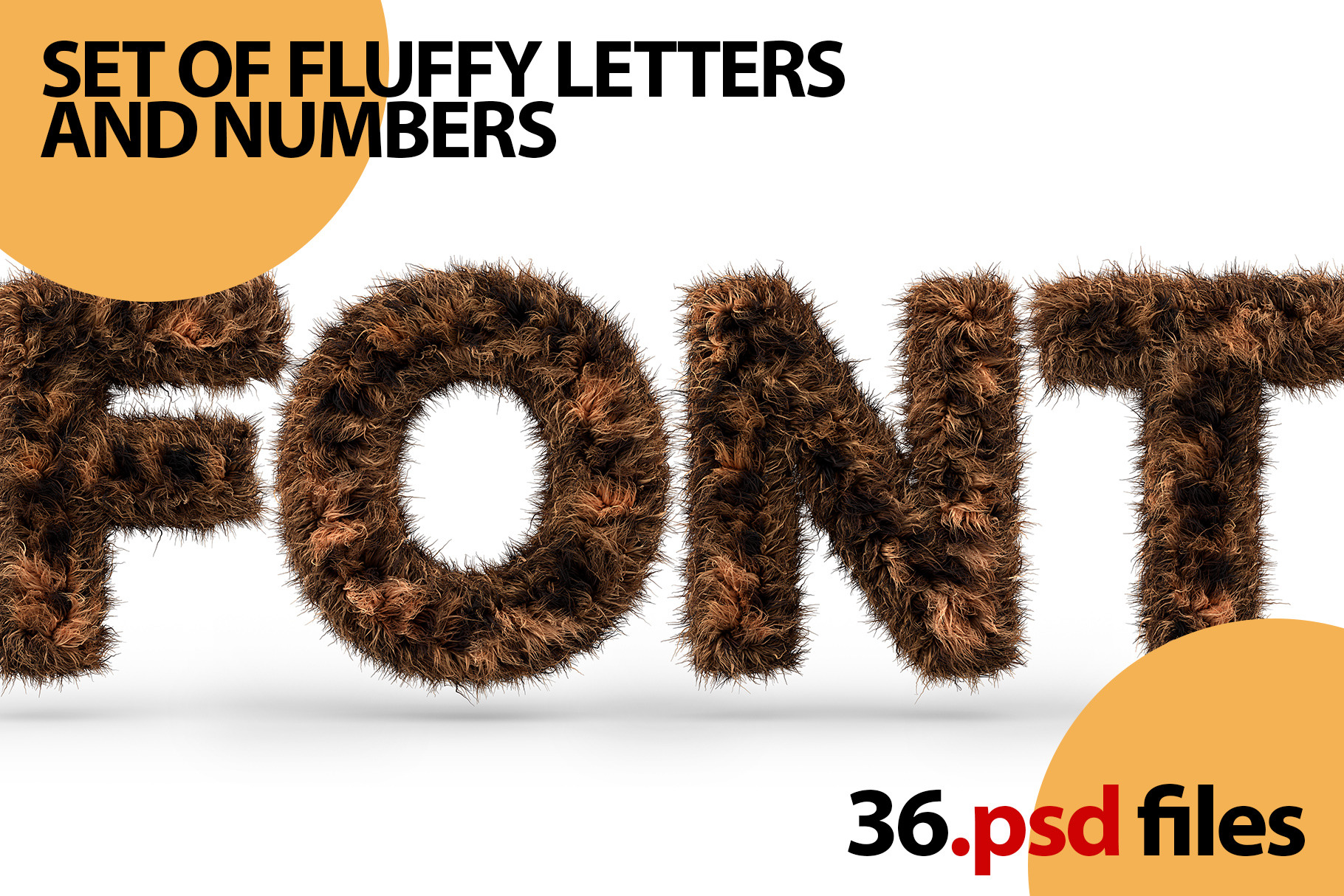
Uppercase fluffy and furry font LEO
Uppercase LEO fluffy and furry font made of fur texture for poster printing, branding, advertising. 3D rendering
Set of letters, numbers and symbols on transparent background.
A set of 36 symbols